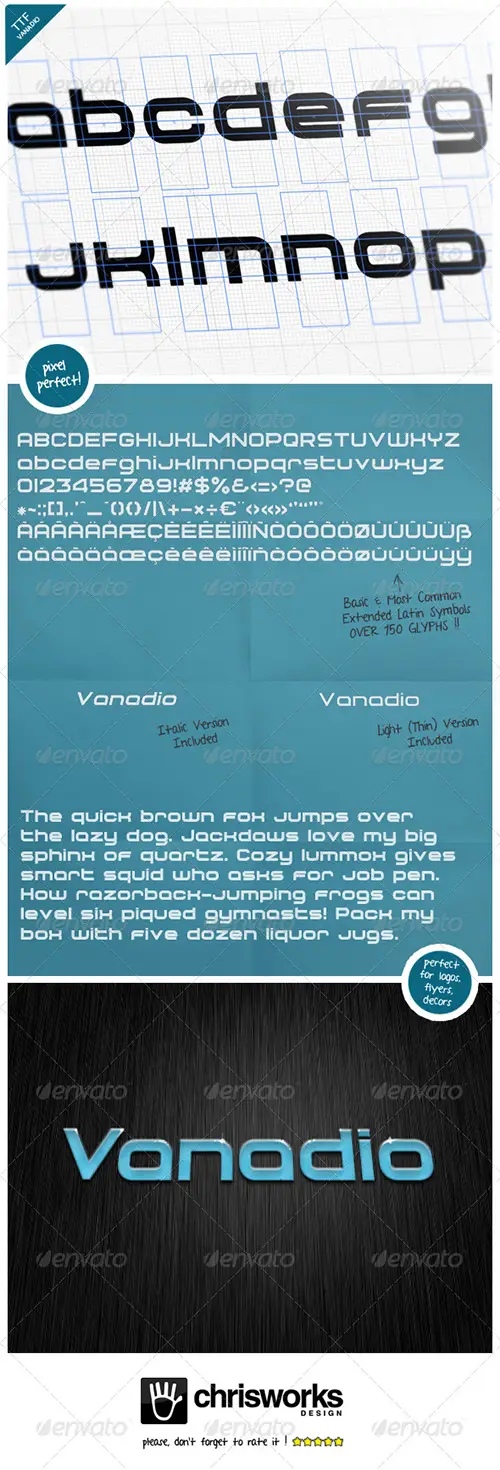
This package contains a pixel perfect, modern-futuristic, dynamic, sans-serif TTF-TRUE TYPE FONT called VANADIO. It’s perfect for any purpose (Logo Design, Flyers, Titling, and many more).
It contains all the Basic Latin Glyphs and the most common Extended Latin Glyphs (e.g.: accented chars).
Regular, Italic & Thin versions included.